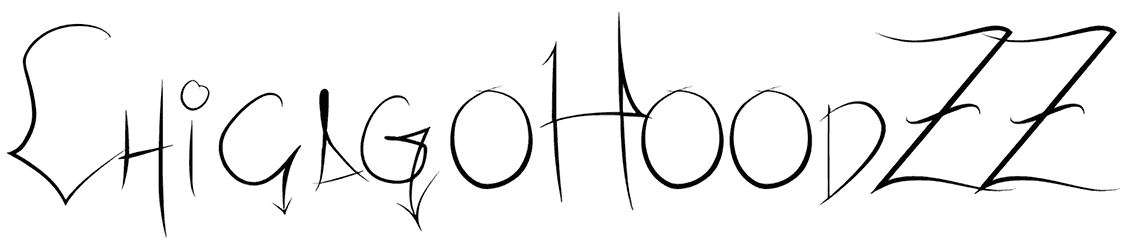
ChicagoHoodZZ Font
Designed byAnthonie Zapata
ChicagoHoodZZ has proven that it is not only thick and bold fonts that can work well in attracting the attention of the audience.
This satanic font has very delicate letters with an asymmetrical appearance as if written by the shaky hands of an elderly person. For this reason, it can convey a sense of maturity and simplicity to the viewer. Our suggestion is to use this horror font to design students’ homework books and wrapping papers to make them special.